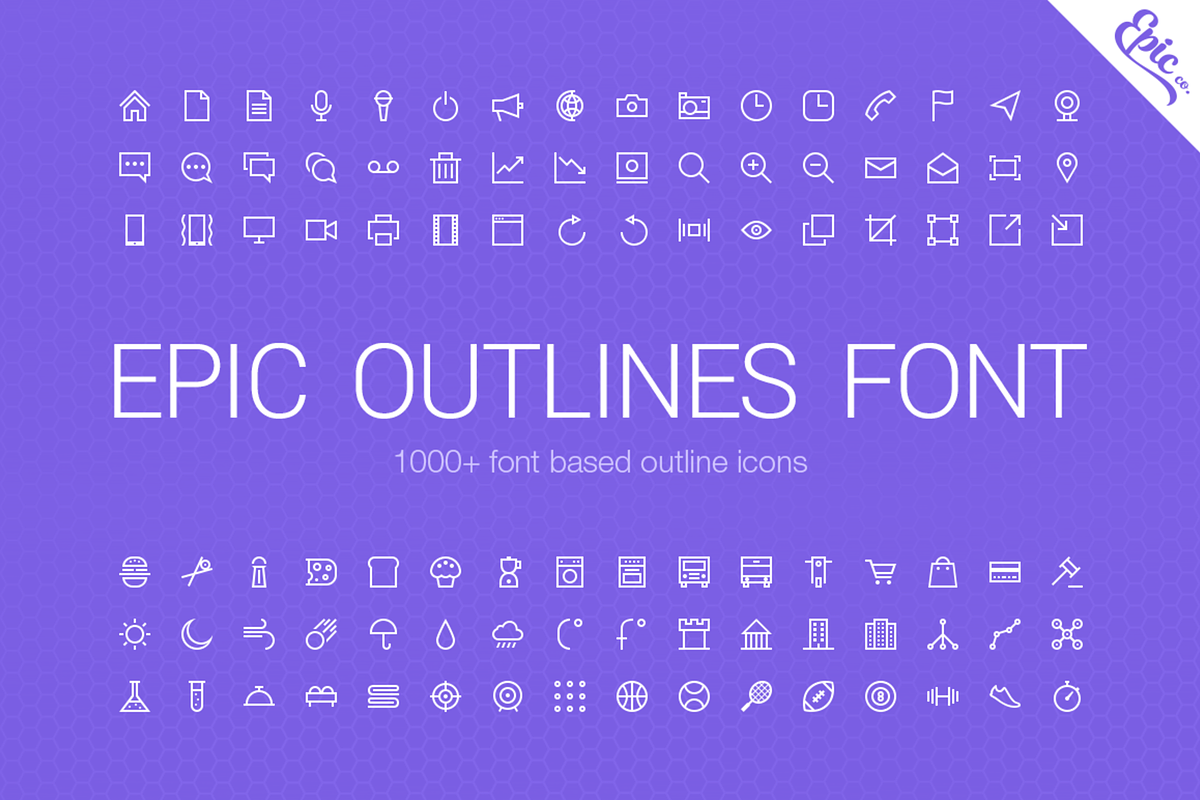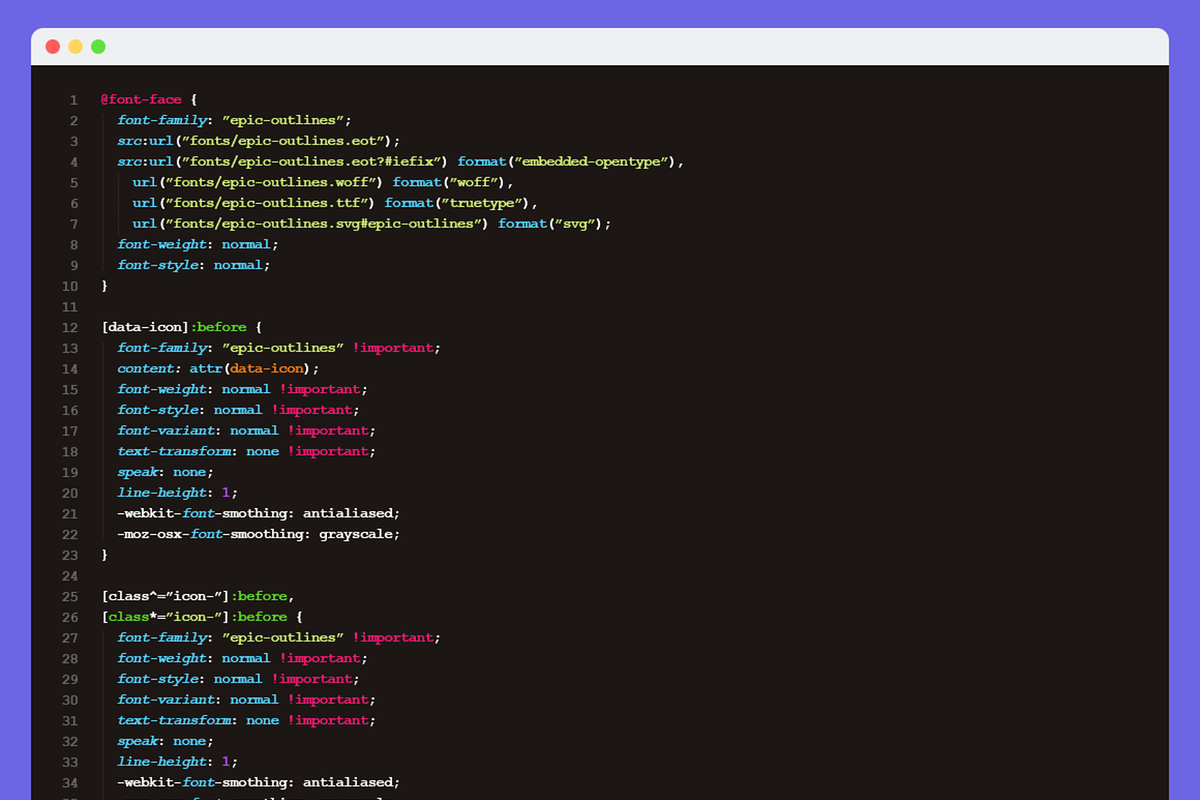
Epic Outlines Font
Epic outline icon web font — now one of the most complete outlined icon webfont on the web has 1000+ vector icons that you can scale up as much as you need to.
Added a new flame icon to the set.
Added new social icons to the font. Over 40 new icons.
We added outline icon font with over 1000+ icons to chose from and use in your web application.
Why Epic Outlines Font is worth a look